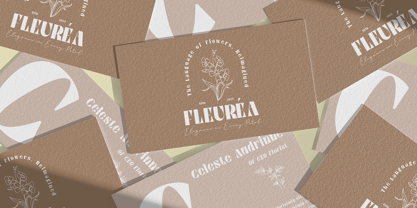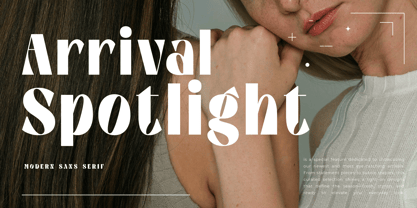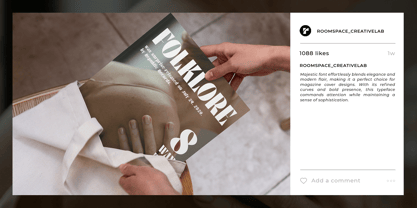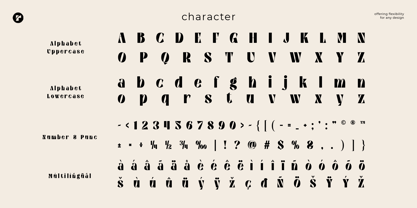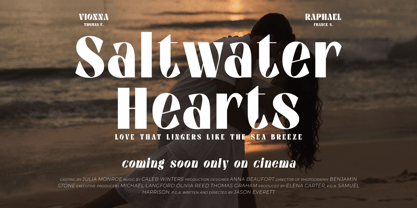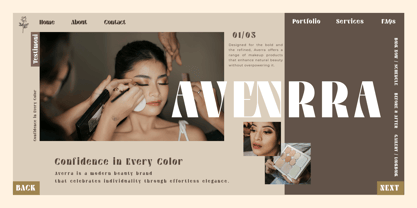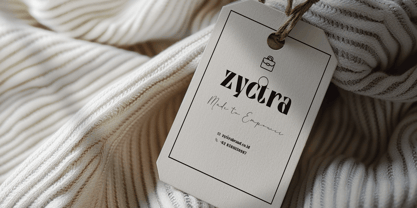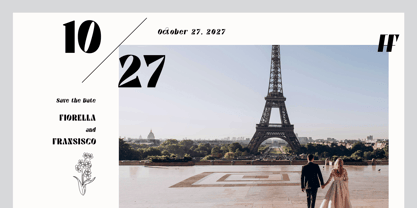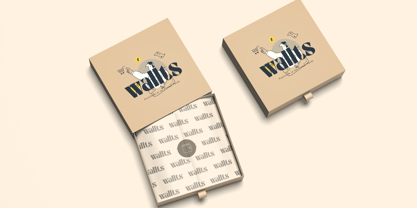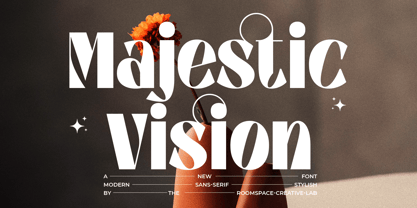
Majestic Vision
by Jafar07
The Majestic Vision Font Family was designed by Bakhrudin Ja'far and published by Jafar07. Majestic Vision contains 2 styles and family package options. More about this family
Majestic Vision is a display serif font that commands attention through bold shapes, sculptural contrast, and a strong editorial flair. Its design merges retro aesthetics with modern sensibility perfect for brands, creatives, and designers seeking high-impact visuals with a nostalgic twist. This font embodies a poised yet playful energy, making it ideal for Instagram graphics, product packaging, editorial layouts, lifestyle blogs, creative portfolios, and branding campaigns that thrive on expressive typography. The balance between heavy verticals and whimsical, almost balloon-like counters gives it a sense of both gravity and movement. Its letterforms are wide and structured yet softened with quirky, unexpected curves a signature that makes every character feel custom-crafted. Majestic Vision is not about blending in. It’s about setting a tone confident, stylish, and memorable.
Designers: Bakhrudin Ja'far
Foundry: Jafar07